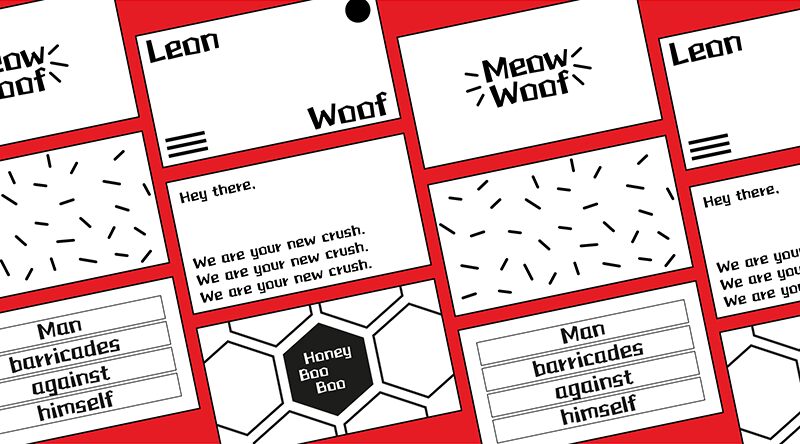
HF Growing is a playful and whimsical display font designed by the talented HyFont Studio. With its semi-expanded width and cartoon-style, this font exudes a fun and lively personality that's perfect for a wide range of projects. From children's books to product packaging, HF Growing is versatile enough to bring any design to life. Its bold semi-bold typeface makes it ideal for eye-catching headlines, while its unique style adds a touch of charm and character to any project. Whether you're designing a website or creating marketing materials, HF Growing is the perfect choice for those looking to make an impact with their typography.